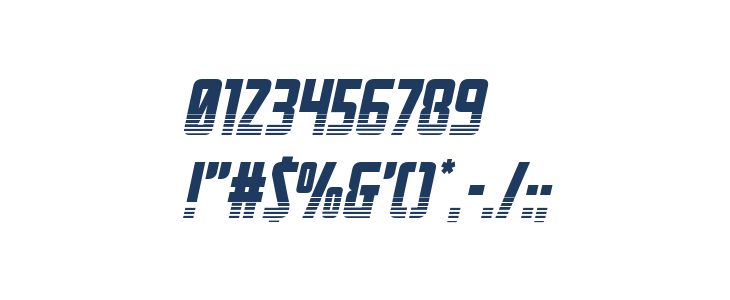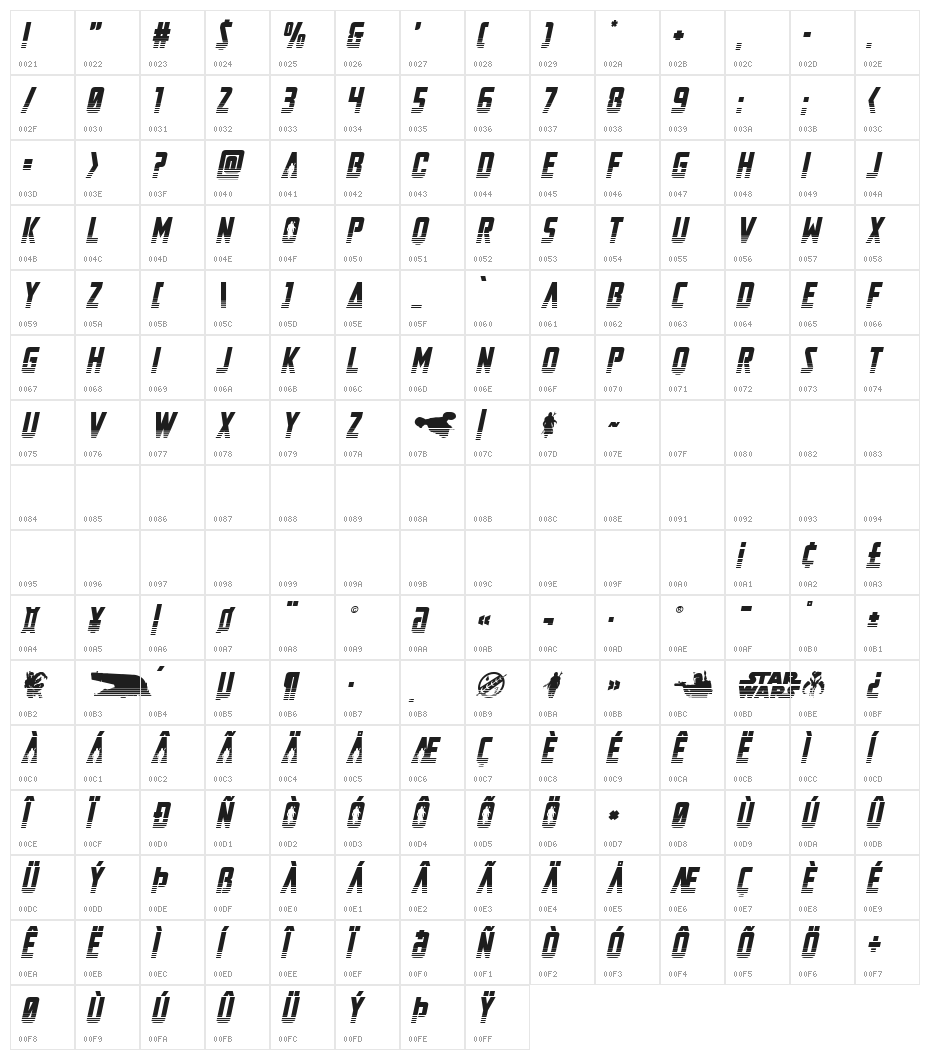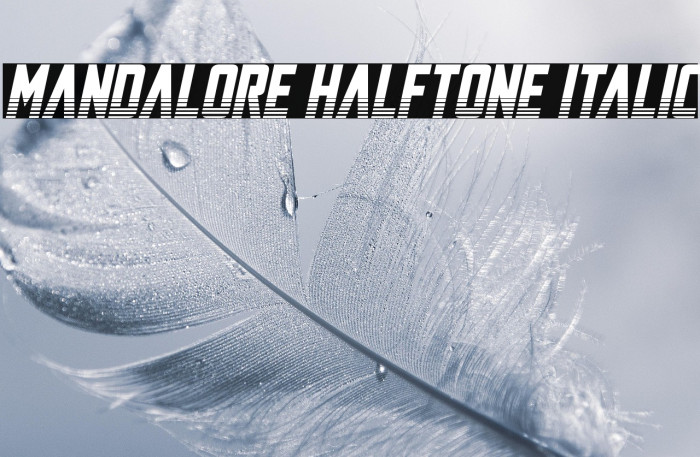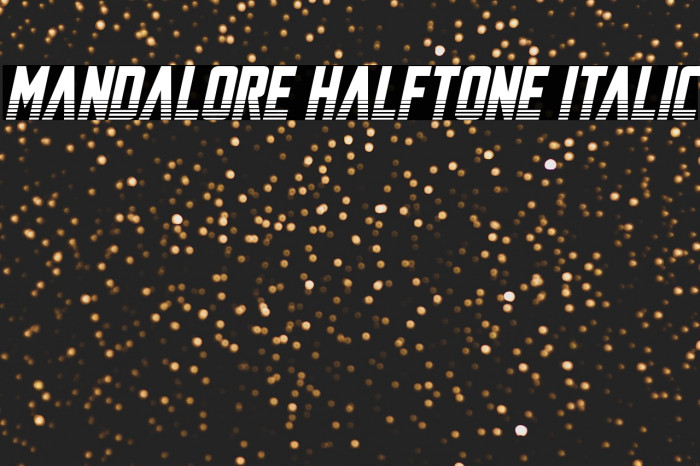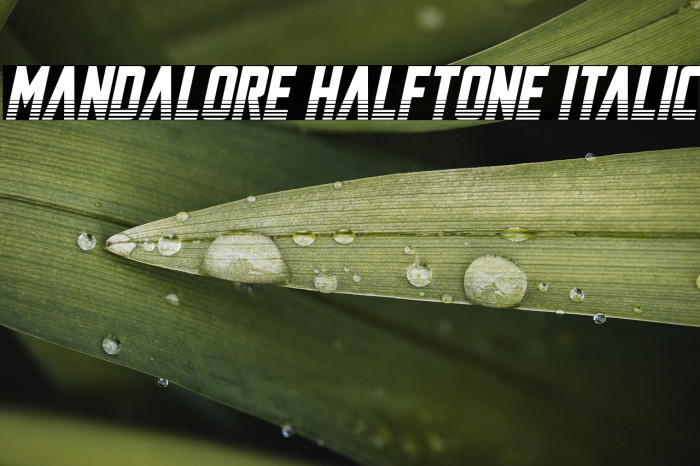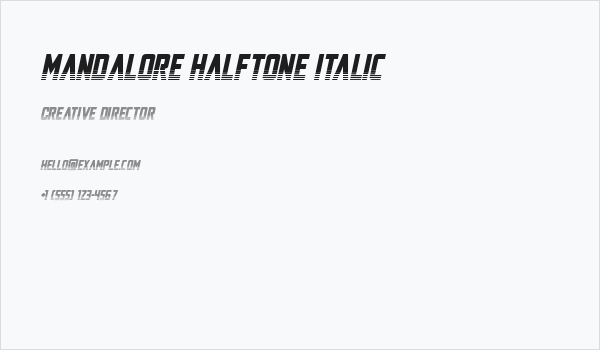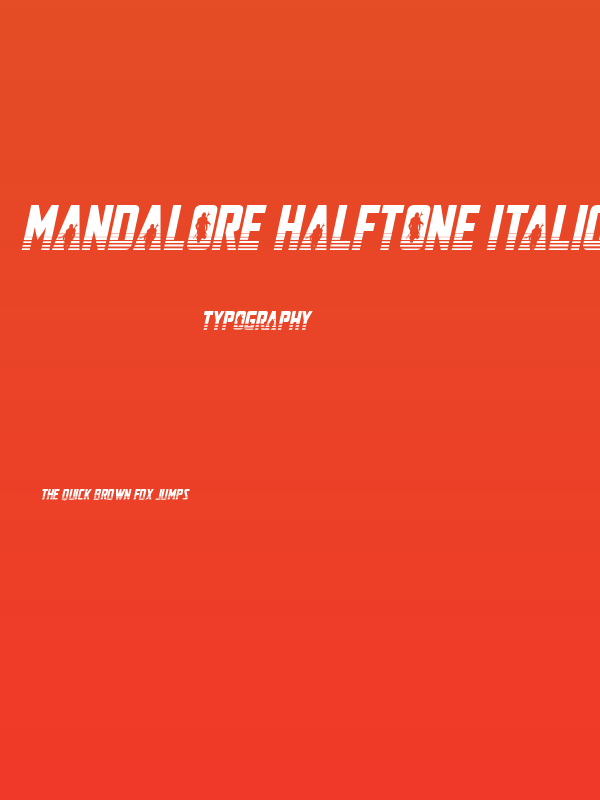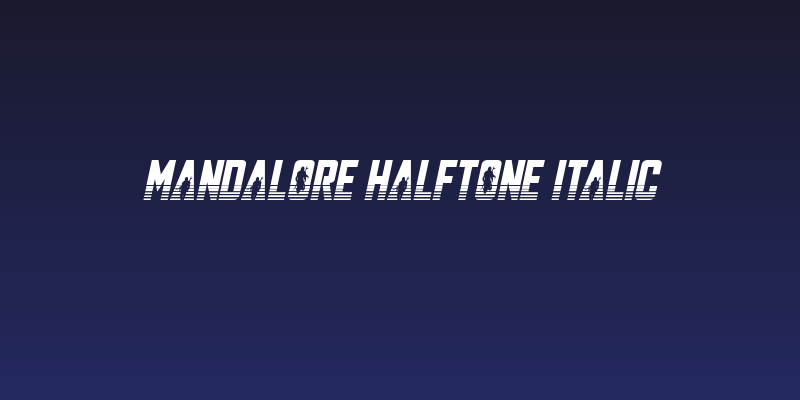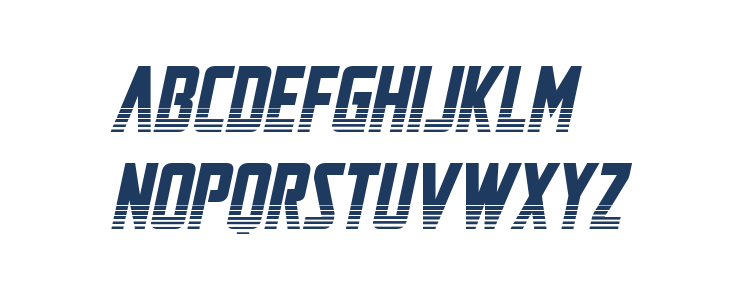
Mandalore Halftone Italic Font
Mandalore Halftone Italic Description
This font features a bold and dynamic design with a halftone effect that gives it a unique, futuristic appearance. The characters are italicized, adding a sense of motion and speed. The uppercase and lowercase letters, as well as numbers and special characters, maintain a consistent style with sharp edges and a slanted orientation. The halftone pattern creates a gradient effect, enhancing the visual interest and making it suitable for eye-catching designs.
| Overall Style | Futuristic, Dynamic |
| Proposed Projects | Ideal for sci-fi themed posters, video game titles, branding for tech companies, and any project requiring a modern, edgy look. |